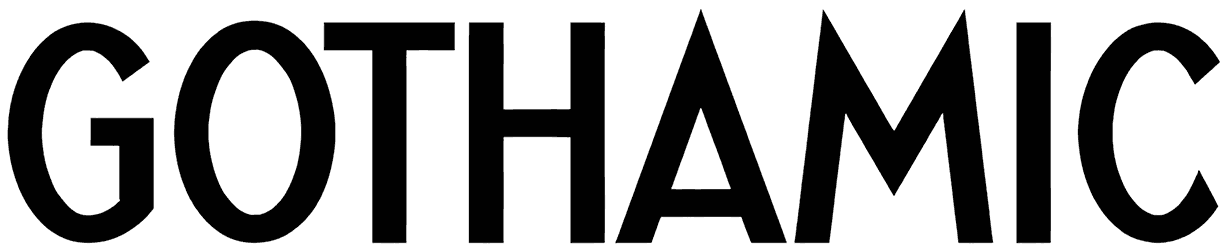
Gothamic Font
Keep your designs simple and still impressive with this sans serif font. The bold letters of this practical font can be used in titles, websites, books, and other needs. Just remember that this font doesn’t contain small characters. Try Gothamic yourself and see it in the real world.